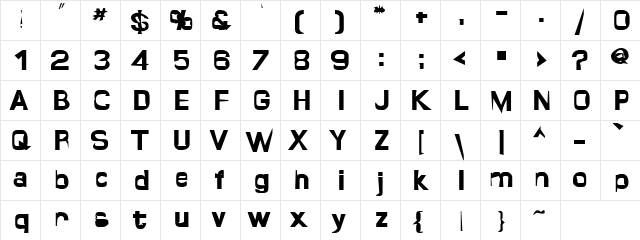
Quropa Regular
Design Context for Quropa Typeface
Quropa takes a measured approach to typography — its balanced proportions and neutral character make it a reliable workhorse for both digital and print work.